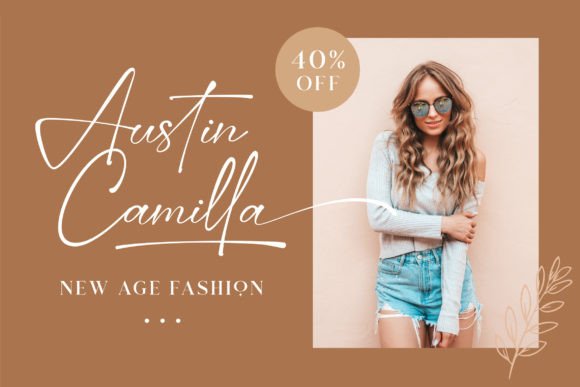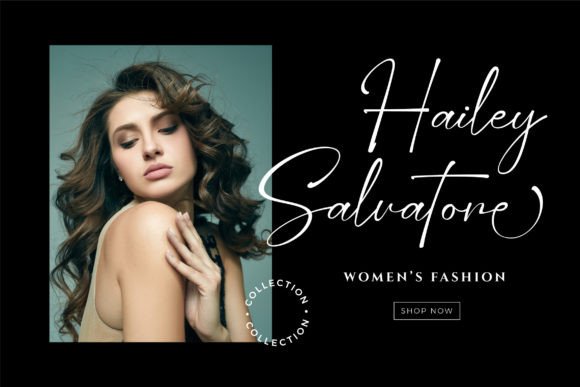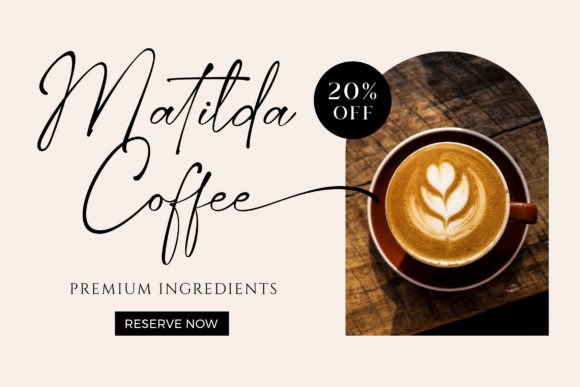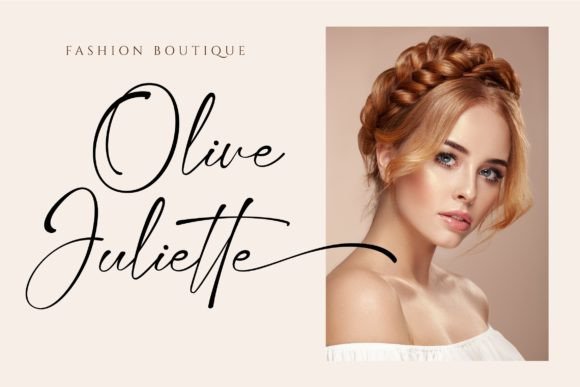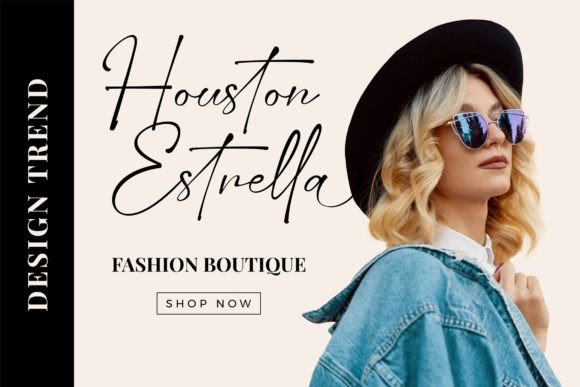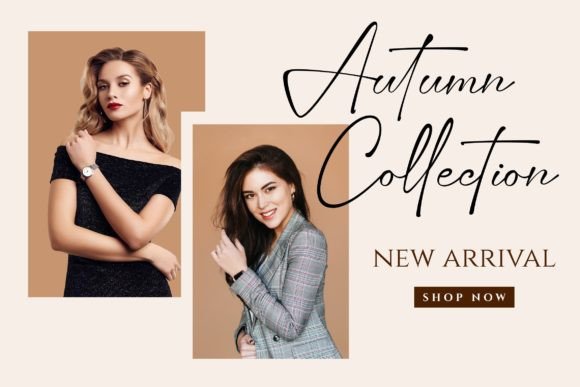
Introduction to Patrick Oklahoma Font
Do you remember that moment when you were working on a creative project and you wished you had the perfect font to elevate it to the next level? That’s exactly what the Patrick Oklahoma Font can do for you. This stunning script font is a game-changer for designers who want to add a touch of elegance and sophistication to their work.
With its high-quality design and intricate details, the Patrick Oklahoma Font is a valuable asset to any designer’s library. Not only is it perfect for creating eye-catching titles and headings, but it’s also great for adding a personal touch to your designs. The best part? It’s available for free download, making it an accessible design resource for anyone.
Whether you’re working on a logo, brochure, or website, the Patrick Oklahoma Font is sure to impress. Its transparent background and high-quality design make it a versatile tool that can be used in a variety of creative projects.
Patrick Oklahoma Font
- Unique, cursive script font with a transparent background, perfect for layered designs.
- Designed with a vintage, hand-painted feel, ideal for invitations, quotes, and watercolor-inspired designs.
Honest Review: Patrick Oklahoma Font
As a designer, I’m always on the lookout for high-quality fonts to elevate my creative projects. The Patrick Oklahoma Font has caught my attention, and I’m excited to share my honest review.
What works well: ✨ The font has a unique, rustic charm that’s perfect for designs that require a touch of personality. It’s also a free download, making it a fantastic design resource for those on a budget. The font comes with a transparent background, allowing for seamless integration into your design projects.
- Unique, rustic charm
However, there are some limitations: ⚠️ The font may not be suitable for designs that require a more modern or sleek aesthetic. Additionally, the font’s irregularities may make it difficult to read for some users.
Overall, I’m impressed with the Patrick Oklahoma Font’s character and versatility. While it may not be perfect for every design project, it’s a great addition to any designer’s toolkit. If you’re looking for a high-quality, free font with a unique touch, the Patrick Oklahoma Font is definitely worth checking out.
The Patrick Oklahoma Font is a versatile design resource that can be used in a variety of creative projects, including logos, business cards, brochures, and social media graphics. Its high-quality design and transparent background make it an ideal choice for designers and non-designers alike.
Alternatives to Patrick Oklahoma Font
Patrick Oklahoma Font Alternative 1: Pacifico Font
Pacifico Font is a high-quality, elegant script font ideal for creative projects requiring a sophisticated touch. It features a transparent background and is perfect for use in invitations, logos, and other design elements. While it lacks the bold, playful feel of Patrick Oklahoma Font, Pacifico’s refined look makes it a great choice for more formal designs.